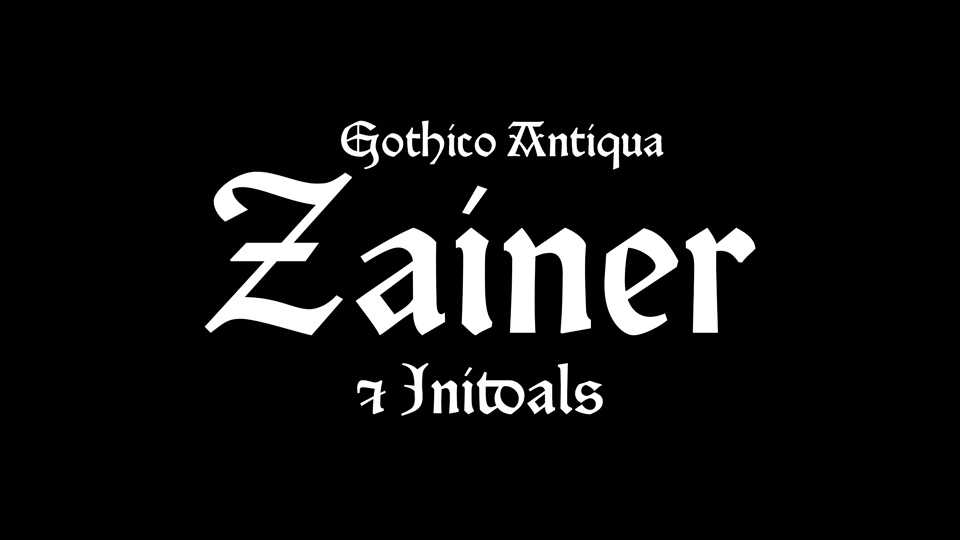
Download Zainer font, Gotico-Antiqua cut in Ulm by Johann Zainer for Jacques de Voragine’s Legenda aurea not after 1477 and used until 1485 and Zainer Initials, richly decorated gothic initials of 45 mm height.